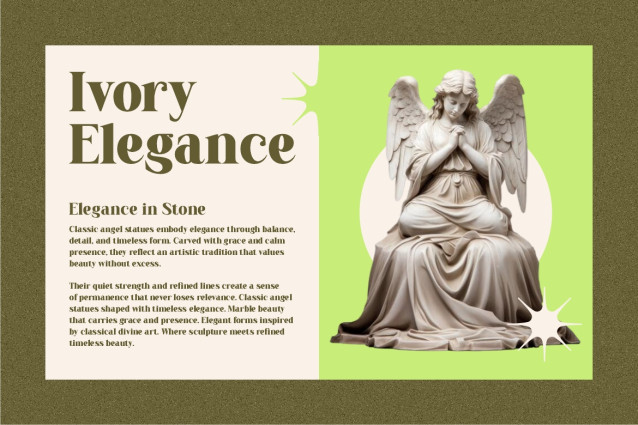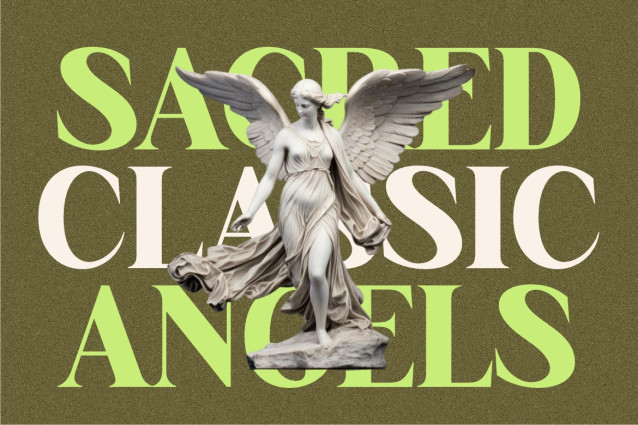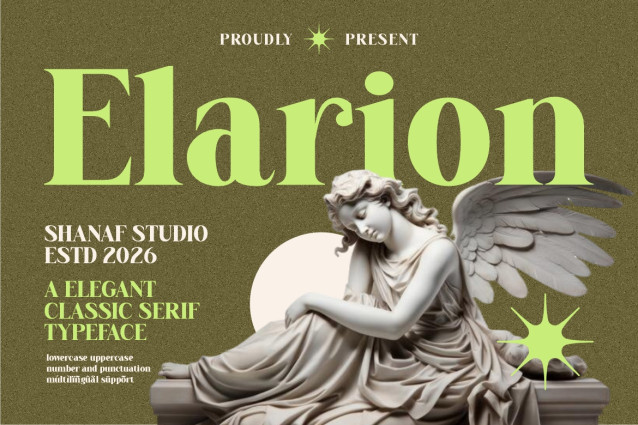
Elarion Elegant Serif Font brings tall letterforms with refined contrast and graceful curves. Each character has a polished serif structure, soft terminals, and balanced proportions. The uppercase feels confident for logo branding, while the lowercase adds a calmer editorial mood. Its clean spacing helps headlines stay clear across large layouts. This font suits brand identity, label design, and product packaging that need a refined visual voice. It also works well for quote design, poster design, and magazine title projects.
The font carries an elegant, classic, and artistic personality without feeling too decorative. Its serif details create a sense of heritage, calm, and trust. Designers can use it for wedding suite layouts, invitation card designs, greeting card concepts, book cover titles, and museum poster artwork. It also fits art gallery branding, architecture studio presentations, interior brand materials, and hotel branding. The letter shapes give every headline design a formal tone with strong readability.
Elarion Elegant Serif Font works especially well for businesses with a refined visual direction. It can support a luxury brand, beauty studio, skincare label, perfume brand, jewelry house, candle shop, and floral shop. It also fits restaurant logo, cafe logo, bakery logo, and gift packaging when the brand needs a calm upscale mood. Beyond products, this font helps build logo branding for creative studios, boutique services, cultural projects, and angel theme visuals with graceful character.